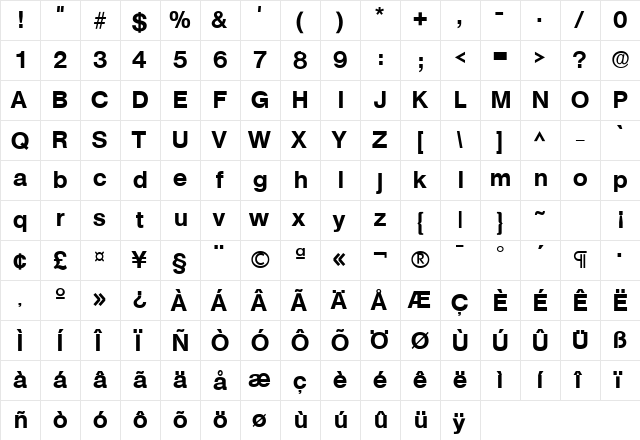
Basic Sans SF Bold
Design Context for Basic Sans SF Typeface
Basic Sans SF offers clean, dependable letterforms without strong stylistic allegiance, making it a practical choice for designers who need flexibility. The heavy weight commands attention and anchors typographic hierarchies.
Pro Tip: Use Basic Sans SF in both headline and body roles to test its range before committing to a single application.